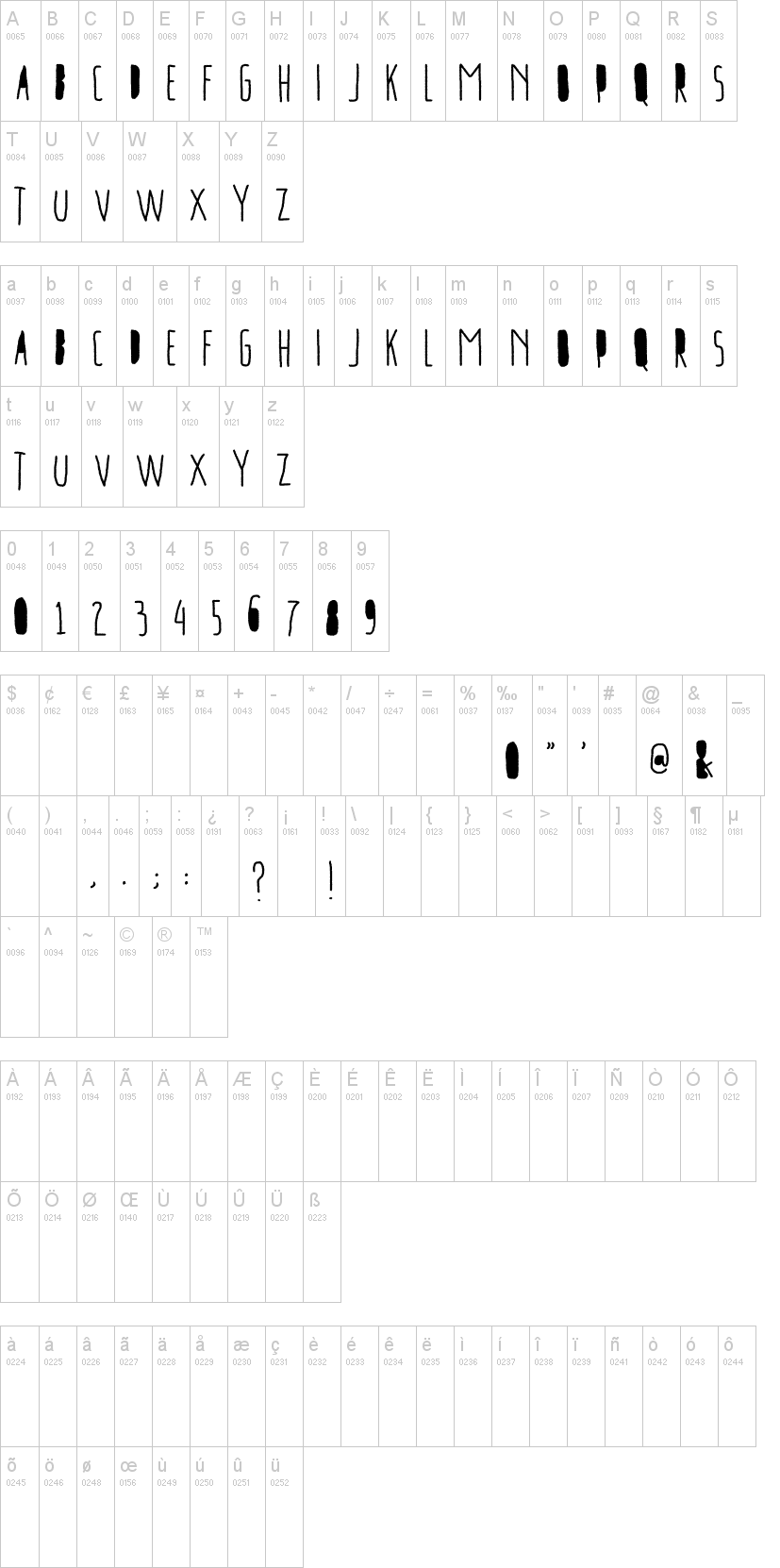
Шрифт Freeport Go Away
It had been decades for Freeport extracting my country wealth. Freeport 'stole' billions ton of gold, silver and copper from biggest gold mine in the world (Papua Province, Indonesia). Freeport pay very tiny number of tax to the government and bribe them all to deceive public of Indonesia. Although there's a big industry i.e Freeport, but they never care about the living of people around them.
The mine accident that recently happened had killed and injured several workers is the exact time to kick Freeport's ass to go away from Indonesia.